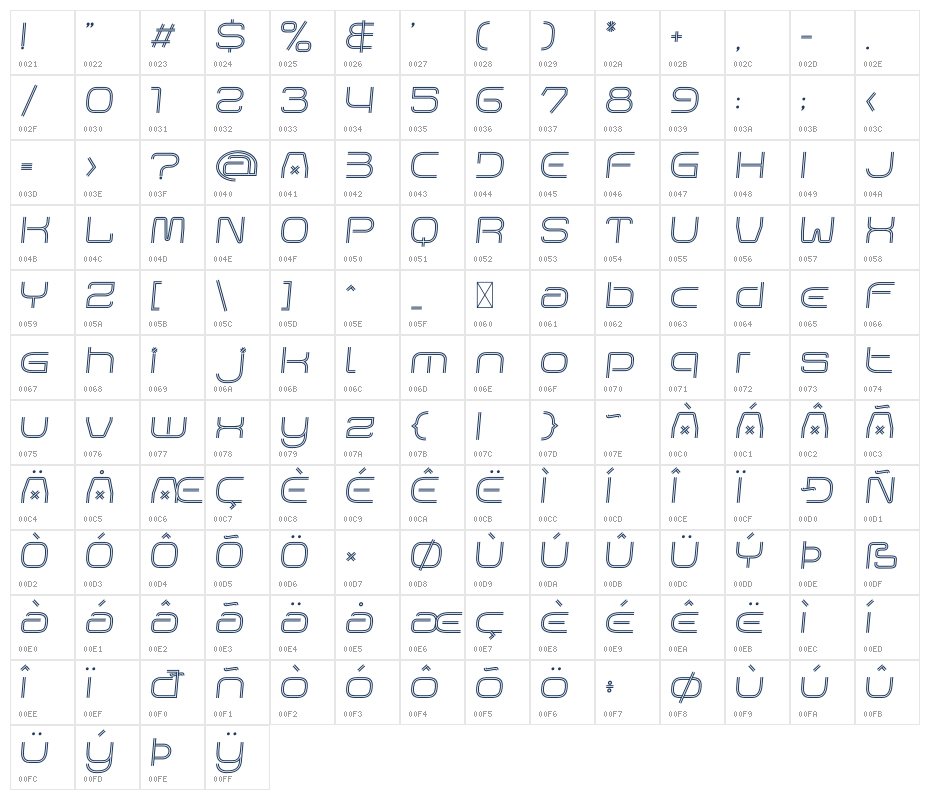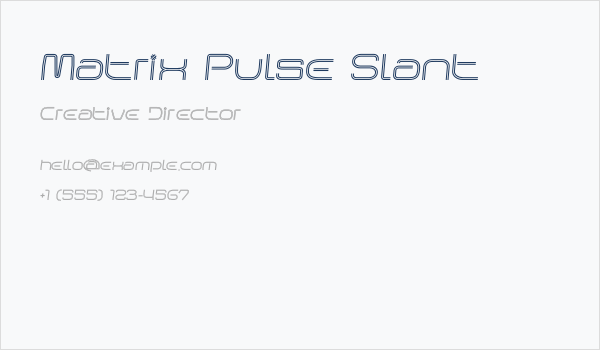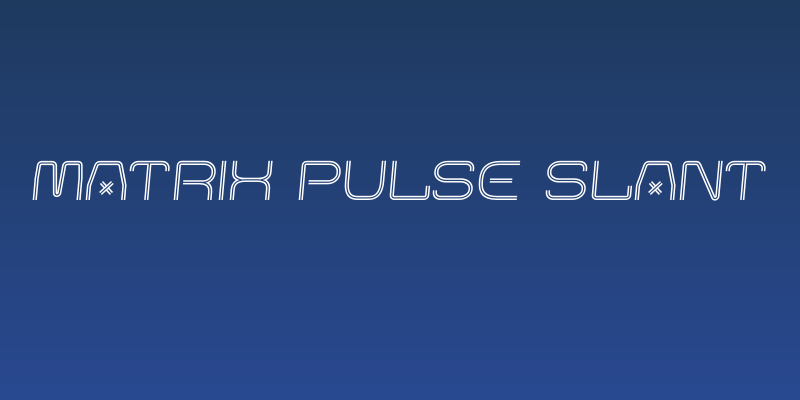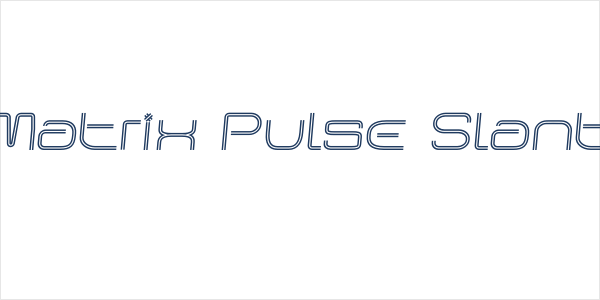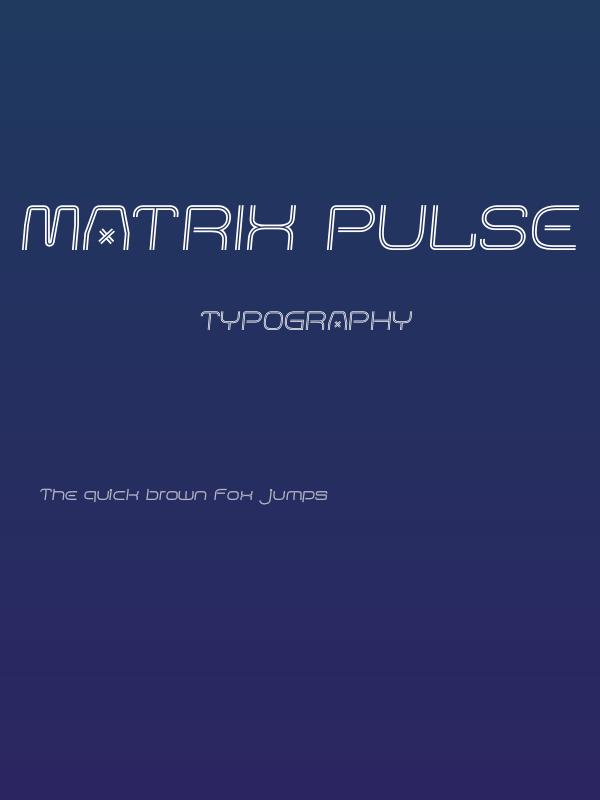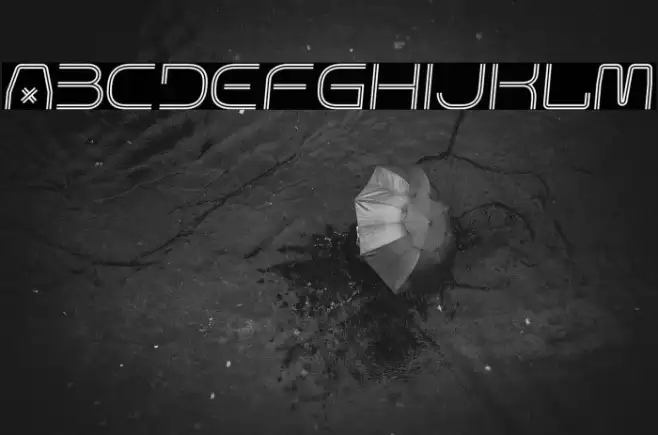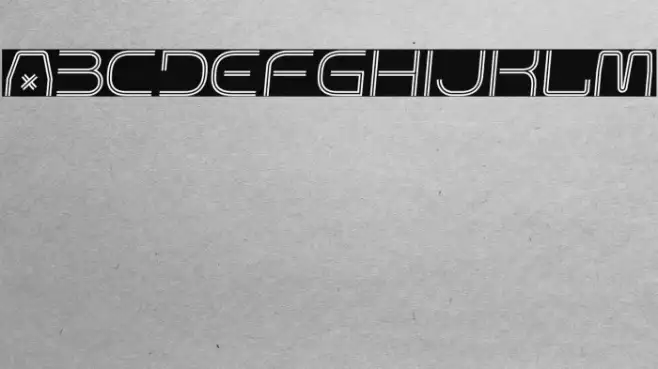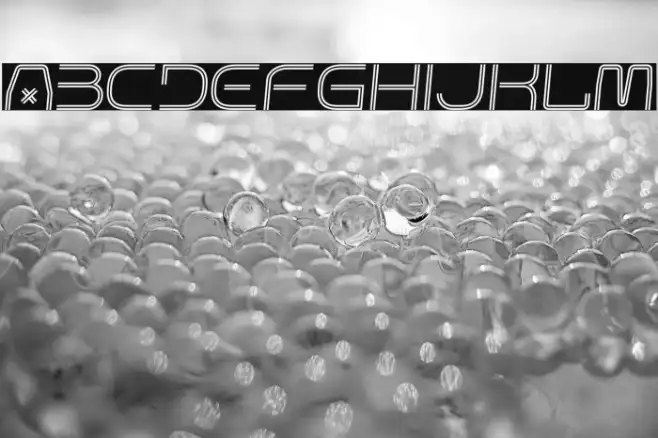
Matrix Pulse Slant Font
Matrix Pulse Slant Description
A geometric, modern, and futuristic sans-serif font with a wireframe or outline style, featuring clean lines and a tech-inspired appearance.
| Overall Style | Modern, Futuristic, Geometric |
| Use Case | Headlines, Digital interfaces, Logos, Tech branding |